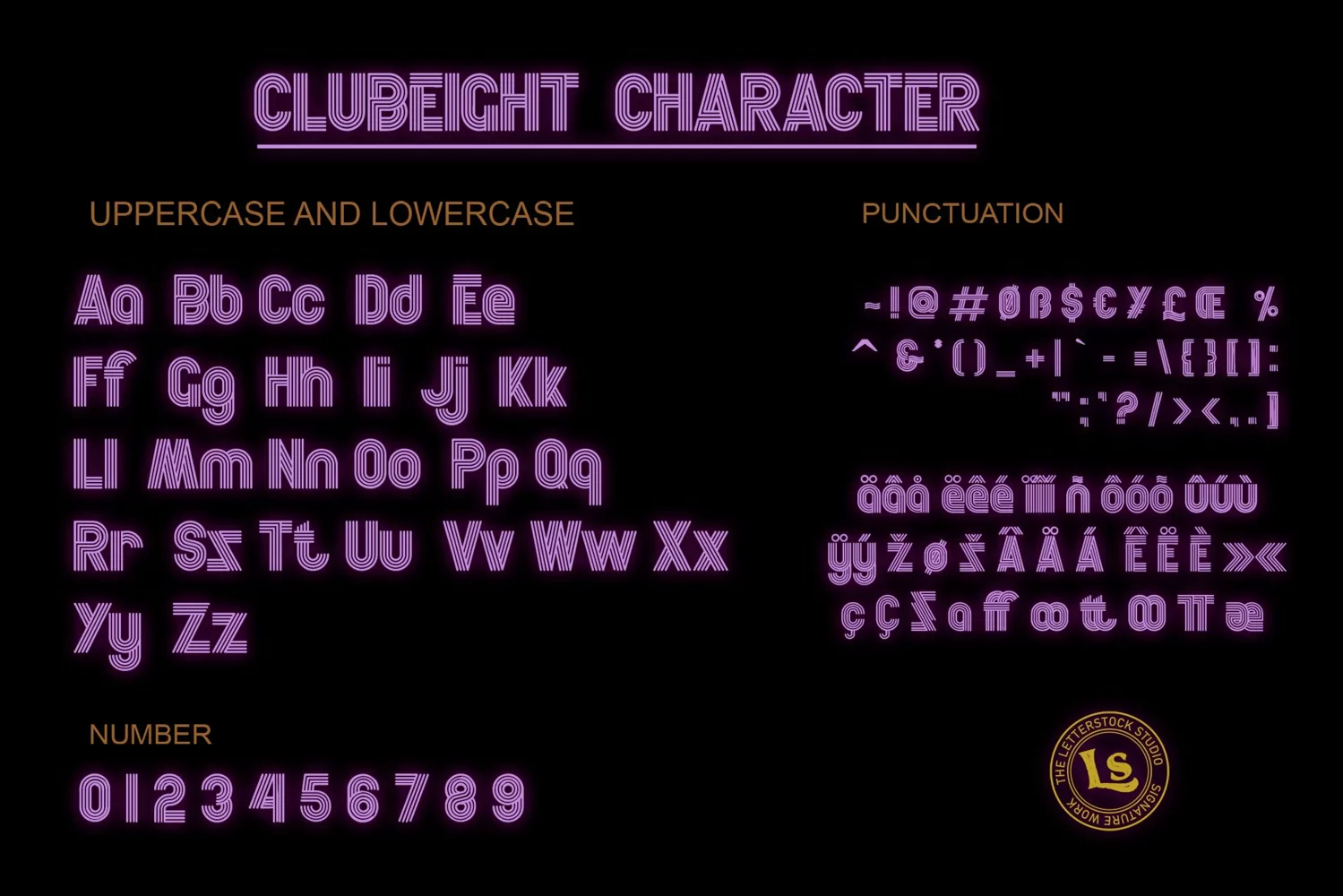
Clubeight
**Clubeight Font**
This pair was inspired by the Retro poster design that i saw on some coffee shop, It was crafted by hand specially to add natural handmade feeling in its brand identity than i make it clean with pentool.
Clubeight font has 199 character set included
Clubeight Font is very good looking in logo, labels, product packaging, invitations, advertising and others.
* Multilingual support (Western European characters).